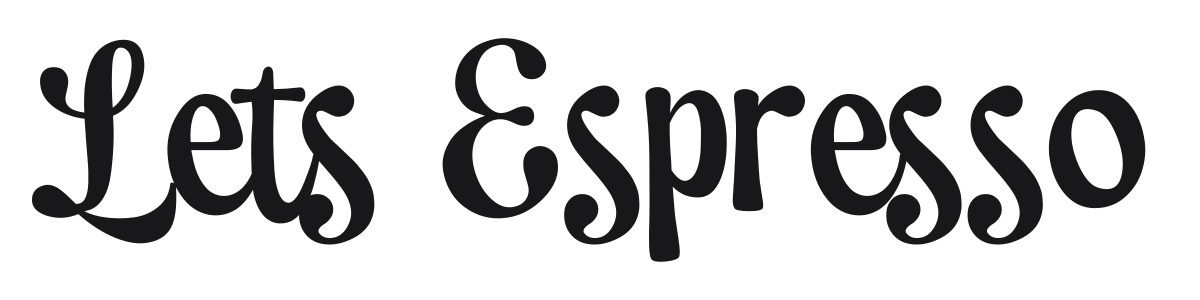
Lets Espresso
Lets Espresso is a bold casual script with chunky rounded strokes and prominent ball terminals that give it a warm, hand-lettered feel. The wide, heavy letterforms carry an artisan café energy without feeling retro or clichéd. It reads confidently at large sizes and suits branding, packaging, and poster work where personality matters.